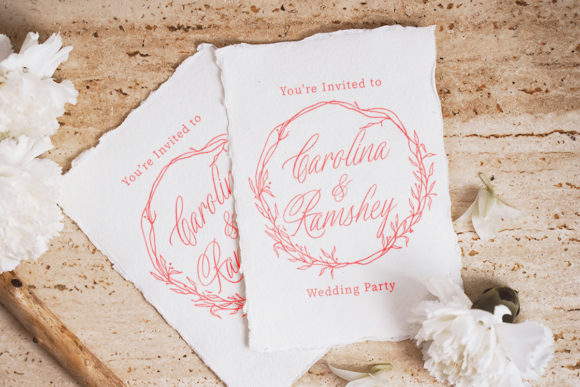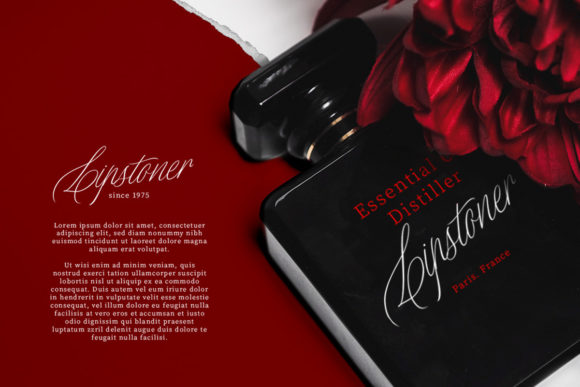
About Distoniare Script Font
Distoniare is a pretty script font based on authentic handwriting with a natural signature style. You can use this font especially in logos, invitations, labels, magazines, books, greeting/wedding cards, packaging, fashion, makeup, stationery, novels, labels, or any other advertising purpose.